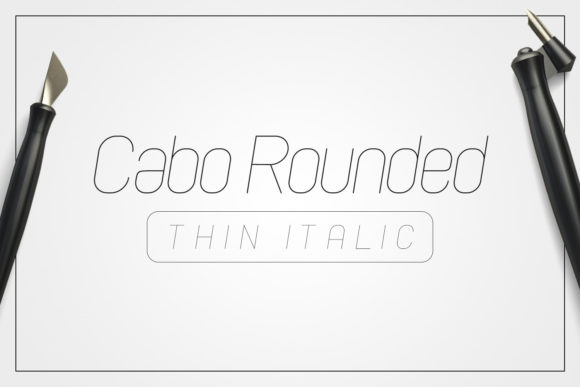
Introducing the Cabo Rounded Thin Italic Font, the key to unlocking your website's transformation. This font is the embodiment of modern elegance, a symphony of clean lines and graceful curves that will make your online presence shine.
Crafted by the masters at Design A Lot, Cabo Rounded Thin Italic is the epitome of versatility. It dances effortlessly with a vast array of projects, becoming the perfect partner for your creative endeavors. Imagine the impact it will have on your website, turning it from ordinary to extraordinary.
This font is your secret weapon for captivating your audience. Its sleek contours and subtle slant evoke a sense of sophistication that will leave a lasting impression. Each letter is a work of art, designed to draw the eye and ignite the imagination.
With Cabo Rounded Thin Italic, you'll discover the power of subtle touches. It's the font that elevates your website beyond the mundane, transforming it into a beacon of style and professionalism. Embrace the modern aesthetic and watch as your online presence blossoms into a masterpiece.
Every stroke, every curve, and every angle of Cabo Rounded Thin Italic is meticulously crafted to enhance your digital identity. It's the font that sets your website apart, making it a destination that visitors will want to explore again and again.
Don't settle for ordinary fonts. Choose Cabo Rounded Thin Italic and elevate your website to new heights of sophistication. Let it be the foundation of your digital empire, a testament to your impeccable taste and unwavering pursuit of excellence.